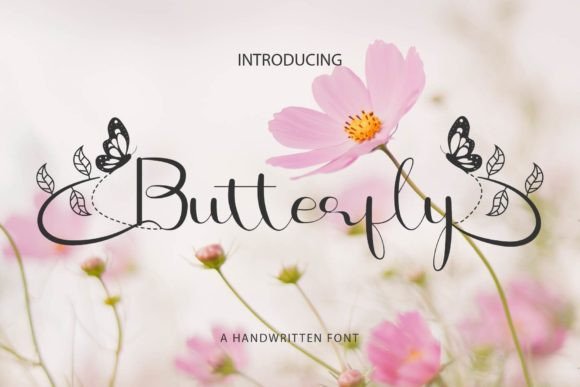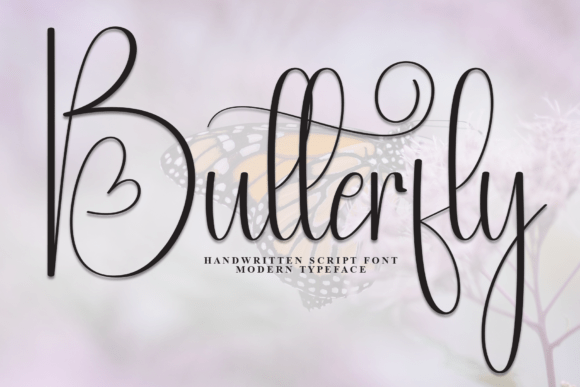
Butterfly Font: Whimsical Silhouettes for Cricut & Craft Projects
About the Butterfly Font
From logos to headlines, the Butterfly Font is the perfect choice for making a lasting impression. Butterfly is a stylish handwritten script font that blends modern elegance with a playful touch. Its fluid strokes and charming curves bring a personal feel to any design. Ideal for logos, packaging, and invitations, this typeface adds warmth, sophistication, and creativity to every project.
Butterfly shines in applications requiring a touch of handwritten charm, such as logos, wedding invitations, and short, impactful headlines. Its playful energy also makes it suitable for packaging designs for products targeting a younger or more feminine demographic. However, its delicate strokes and varying letterforms make it less ideal for body text or UI elements where legibility at smaller sizes is crucial. Extended use could lead to readability issues.
Pairing Butterfly with a clean sans-serif like Montserrat or a geometric sans-serif like Futura provides a strong contrast, grounding its playful energy. For a more sophisticated feel, consider pairing it with a classic serif like Garamond or a slightly more modern serif like Playfair Display. These pairings create visually balanced designs.
Butterfly’s overall personality is best described as playful yet elegant. Its delicate strokes convey a sense of sophistication, while its casual, handwritten style adds a friendly and approachable vibe. This makes it a strong choice for brands that want to project both personality and professionalism.
Butterfly Font Usage Examples
Butterfly Font Example